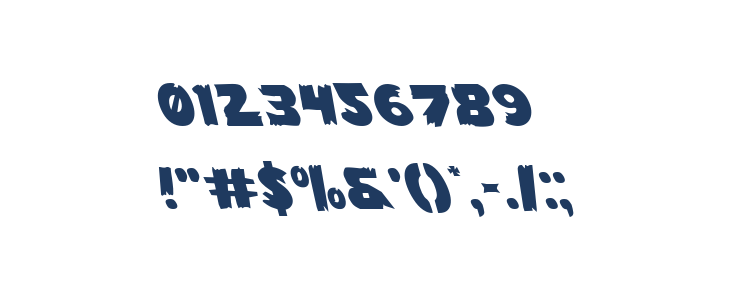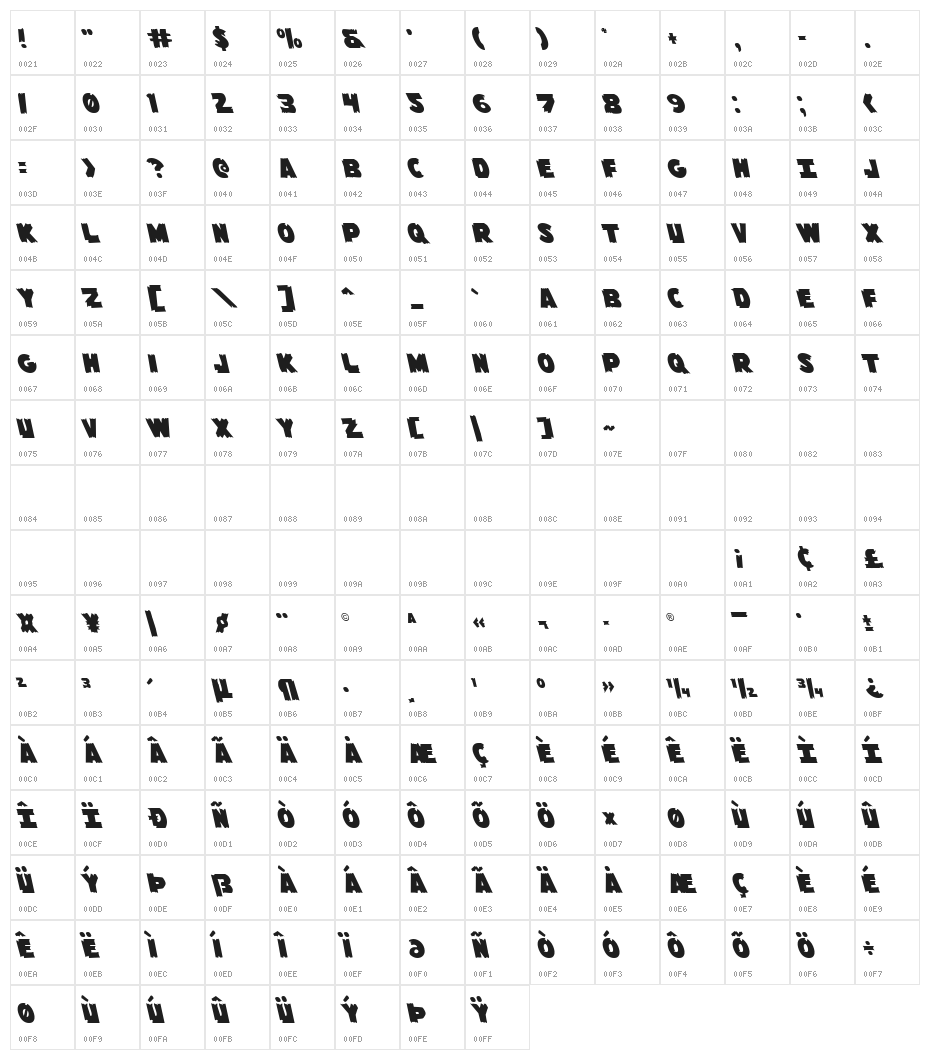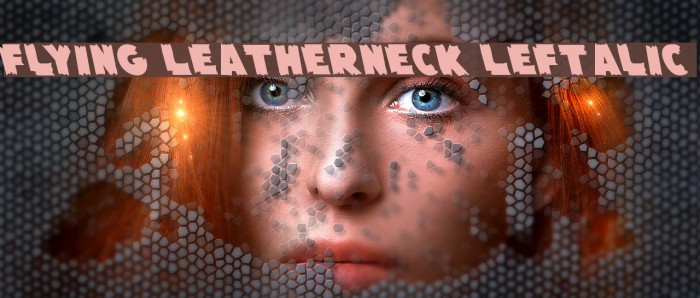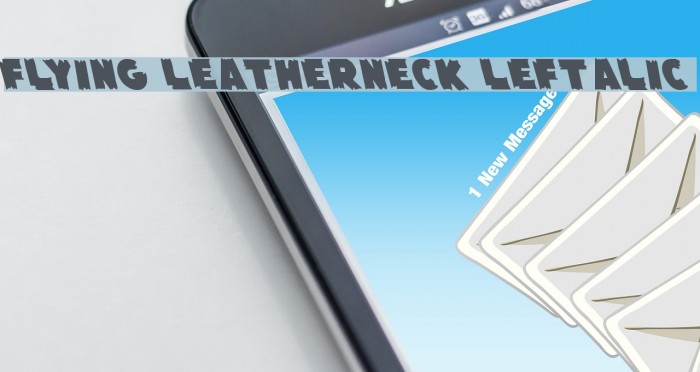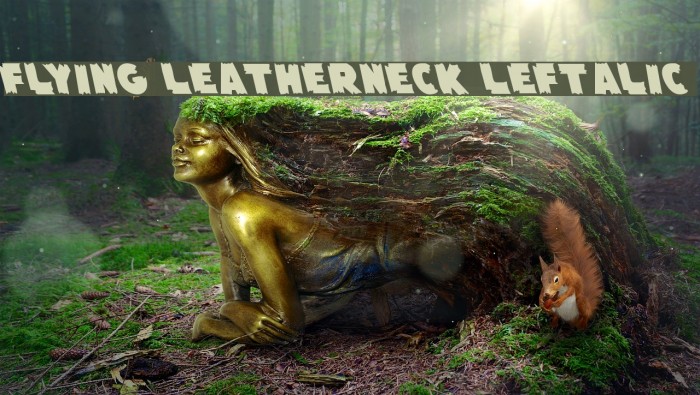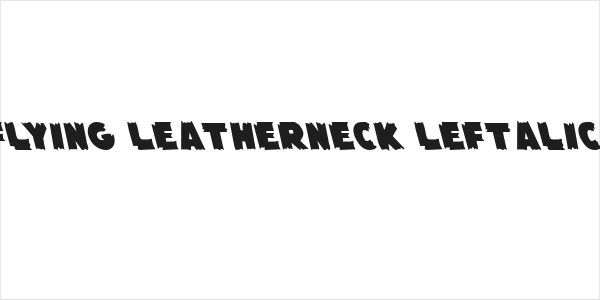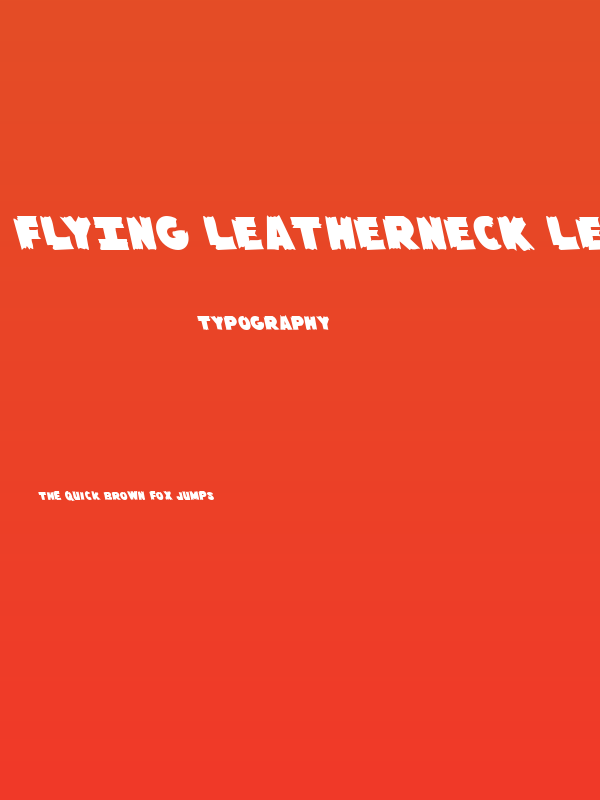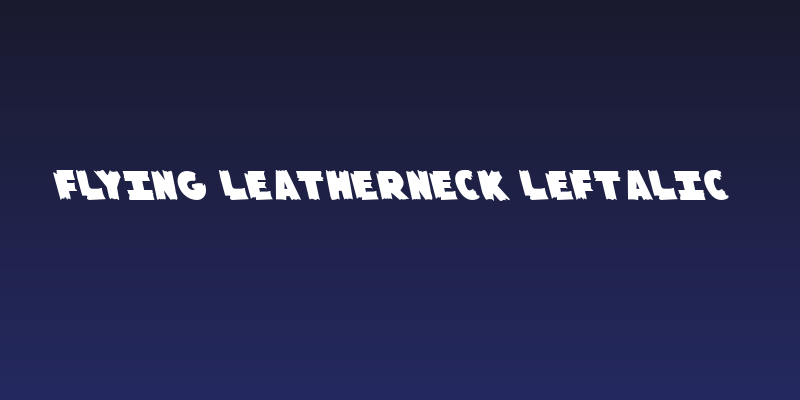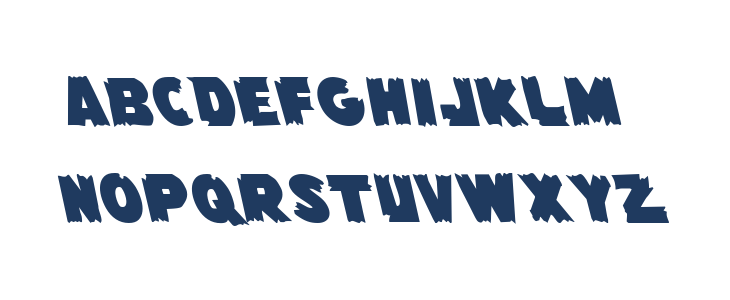
Flying Leatherneck Leftalic Font
Flying Leatherneck Leftalic Description
This font features a bold and dynamic style with a distinct leftward slant, giving it an energetic and rebellious feel. The characters are heavily stylized with jagged edges and irregular shapes, creating a sense of movement and intensity. The uppercase and lowercase letters maintain a consistent design, while the numerals and special characters complement the overall aesthetic. This font's unique appearance makes it stand out, ideal for projects that require a strong visual impact.
| Overall Style | Modern, Edgy |
| Proposed Projects | Perfect for posters, album covers, video game titles, and any design needing a bold, edgy look. |